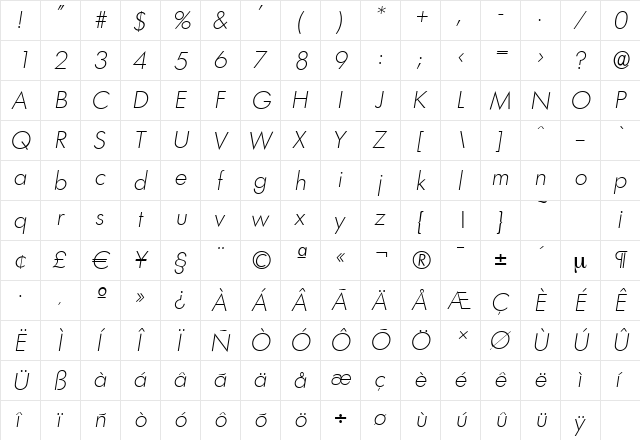
LimerickSerial-Xlight Italic
Design Context for LimerickSerial-Xlight Typeface
LimerickSerial-Xlight takes a measured approach to typography — its balanced proportions and neutral character make it a reliable workhorse for both digital and print work. Its italic angle brings a sense of urgency and motion to the letterforms. The delicate stroke weight brings airiness and refinement to layouts.
Pro Tip: Use LimerickSerial-Xlight for emphasis, pull quotes, and subheadings where its slanted energy can add rhythm to the layout.